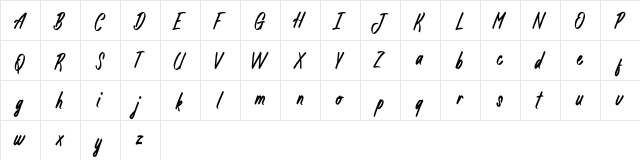
Armenicha Demo Regular
| Foundry | Anomali Creatype |
| Designer | Krisna Teja |
Design Context for Armenicha Demo Typeface
Armenicha Demo is a composed and adaptable typeface that performs quietly and consistently across a wide range of design contexts.